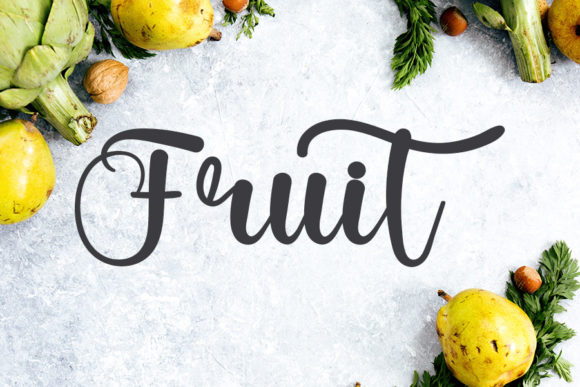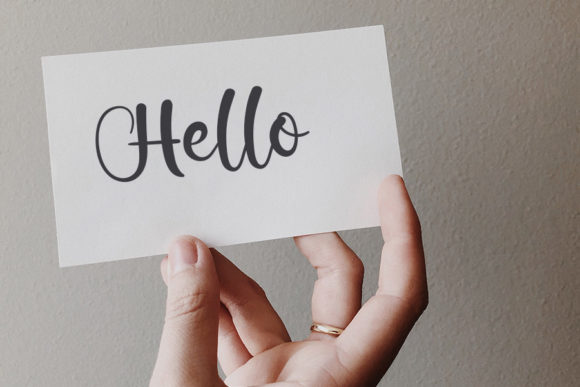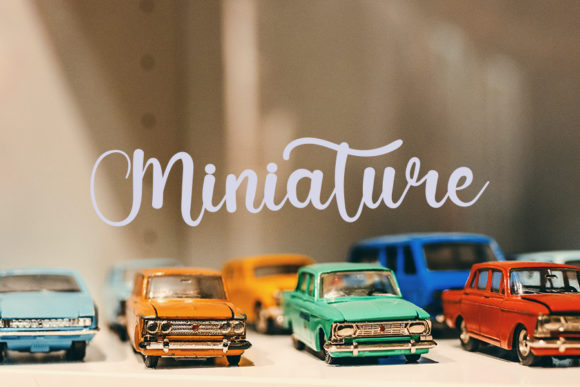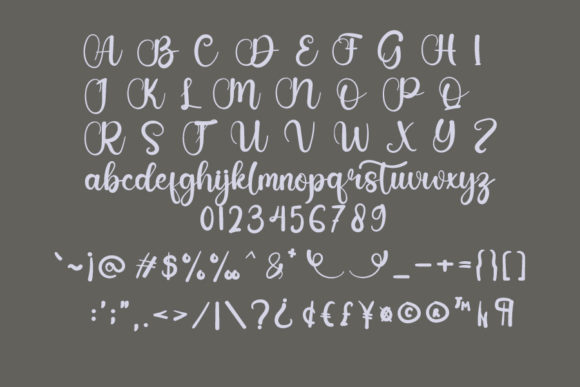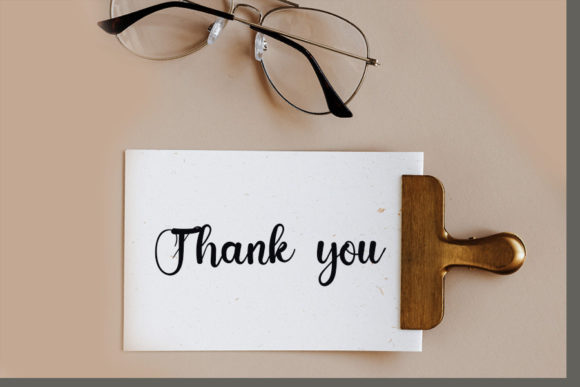
Introduction to Jamur Font Font
Fonts play a crucial role in design, and the Jamur Font font is a typeface that brings both character and versatility to any project. Whether you’re working on a branding project, a website, or a print design, the Jamur Font font offers a unique style that can elevate your work.
Jamur is a beautiful and versatile handwritten font with a unique feel and a stunning impact.
It will add a lovely spark to any design or creative project you have coming up .
Key Features of Jamur Font Font
Why Choose Jamur Font Font?
The Jamur Font font is more than just a typeface – it’s a design tool that helps you communicate your message with style and clarity. Its unique character set and versatile design make it suitable for a wide range of applications, from elegant invitations to bold headlines.
With its carefully crafted letterforms and balanced proportions, the Jamur Font font ensures readability and visual appeal across all mediums.
What makes Jamur Font font special?
The Jamur Font font stands out with its unique design, exceptional readability, and versatility across various design applications.